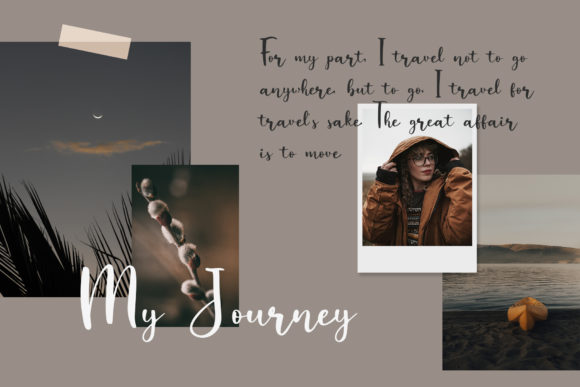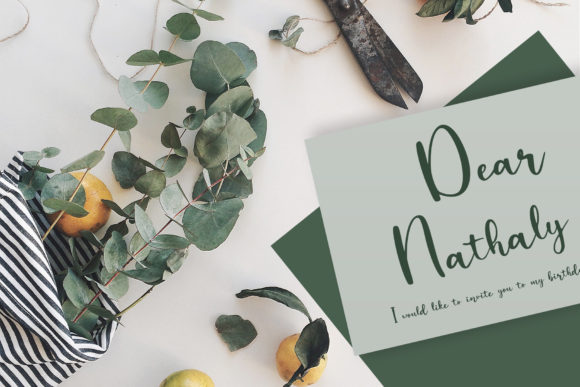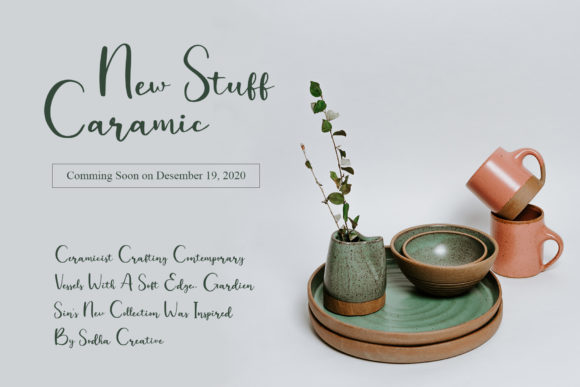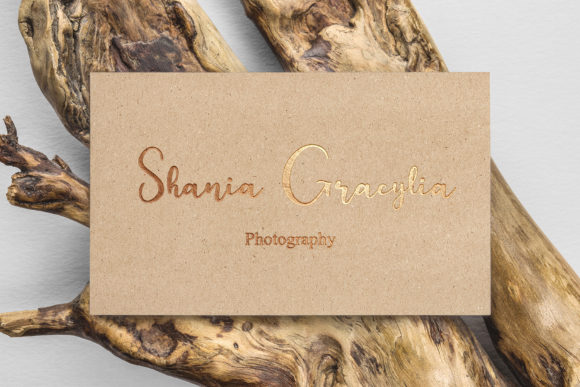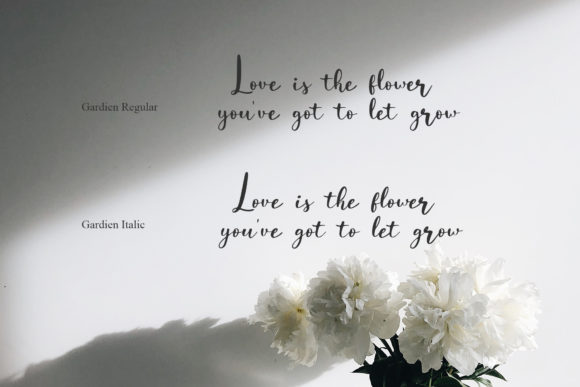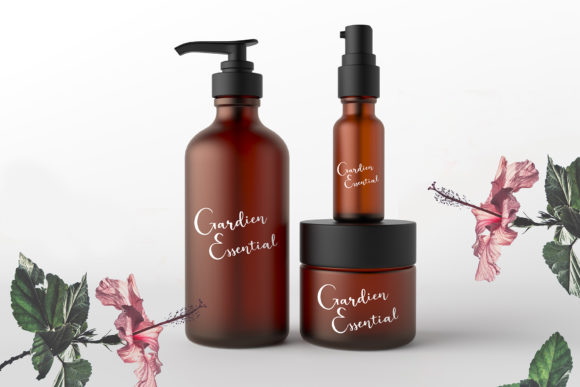
Gardien Font: Elevate Your Designs with Modern Calligraphy
In the world of typography, a well-crafted font can make all the difference in elevating your design to the next level. Introducing Gardien Font, a stylish modern calligraphy font that is sure to captivate your audience with its lovely touches. This versatile font is perfect for a wide range of projects, from logos and branding to invitations, posters, apparel, and more.
The Characteristics of Gardien Font
Gardien Font boasts a unique blend of modernity and elegance, making it an excellent choice for designers and crafters looking to add a touch of sophistication to their work. Some of its notable features include:
- Modern Calligraphy Style: Gardien Font features a beautiful, flowing script that is reminiscent of traditional calligraphy. Its modern twist makes it perfect for contemporary designs.
- Lovely Touches: The font’s intricate details and flourishes add a touch of elegance and whimsy, making it ideal for designs that require a bit of personality.
- High Versatility: Gardien Font can be used for a wide range of projects, from print materials like logos, invitations, and posters to digital applications like branding and apparel.
Uses of Gardien Font
The versatility of Gardien Font makes it an excellent addition to any designer’s toolkit. Here are some of the many ways you can use this beautiful font:
- Invitations and Event Materials: Make your invitations, wedding cards, and event posters stand out with Gardien Font’s elegant script.
- Posters and Flyers: Add a touch of sophistication to your promotional materials with this stylish font.
- Apparel and Merchandise: Create eye-catching t-shirts, hoodies, and other merchandise that will make your brand or message stand out.
Why Choose Gardien Font?
With so many fonts available, why choose Gardien Font for your next project? Here are a few compelling reasons:
- Unique and Memorable: Gardien Font’s distinctive style ensures that your design will stand out from the crowd and leave a lasting impression.
- Elegant and Sophisticated: This font’s elegant script and lovely touches add a touch of sophistication to any design.
- Easy to Read and Versatile: Despite its ornate details, Gardien Font remains easy to read, making it perfect for a wide range of applications.
Tips for Using Gardien Font Effectively
To get the most out of Gardien Font, here are a few tips to keep in mind:
- Pair with Complementary Fonts: Combine Gardien Font with simpler fonts to create visual interest and hierarchy in your design.
- Experiment with Colors and Textures: Don’t be afraid to try out different colors and textures to add depth and personality to your design.
- Pay Attention to Spacing and Kerning: Make sure to adjust the spacing and kerning of your text to ensure that it looks polished and professional.
Gardien Font is a stylish modern calligraphy font that is sure to elevate your designs to the next level. With its lovely touches, high versatility, and elegant script, this font is perfect for a wide range of projects. Whether you’re a designer, crafter, or simply someone looking to add a touch of sophistication to your work, Gardien Font is an excellent choice. So why wait? Download Gardien Font today and start creating stunning designs that will leave a lasting impression!